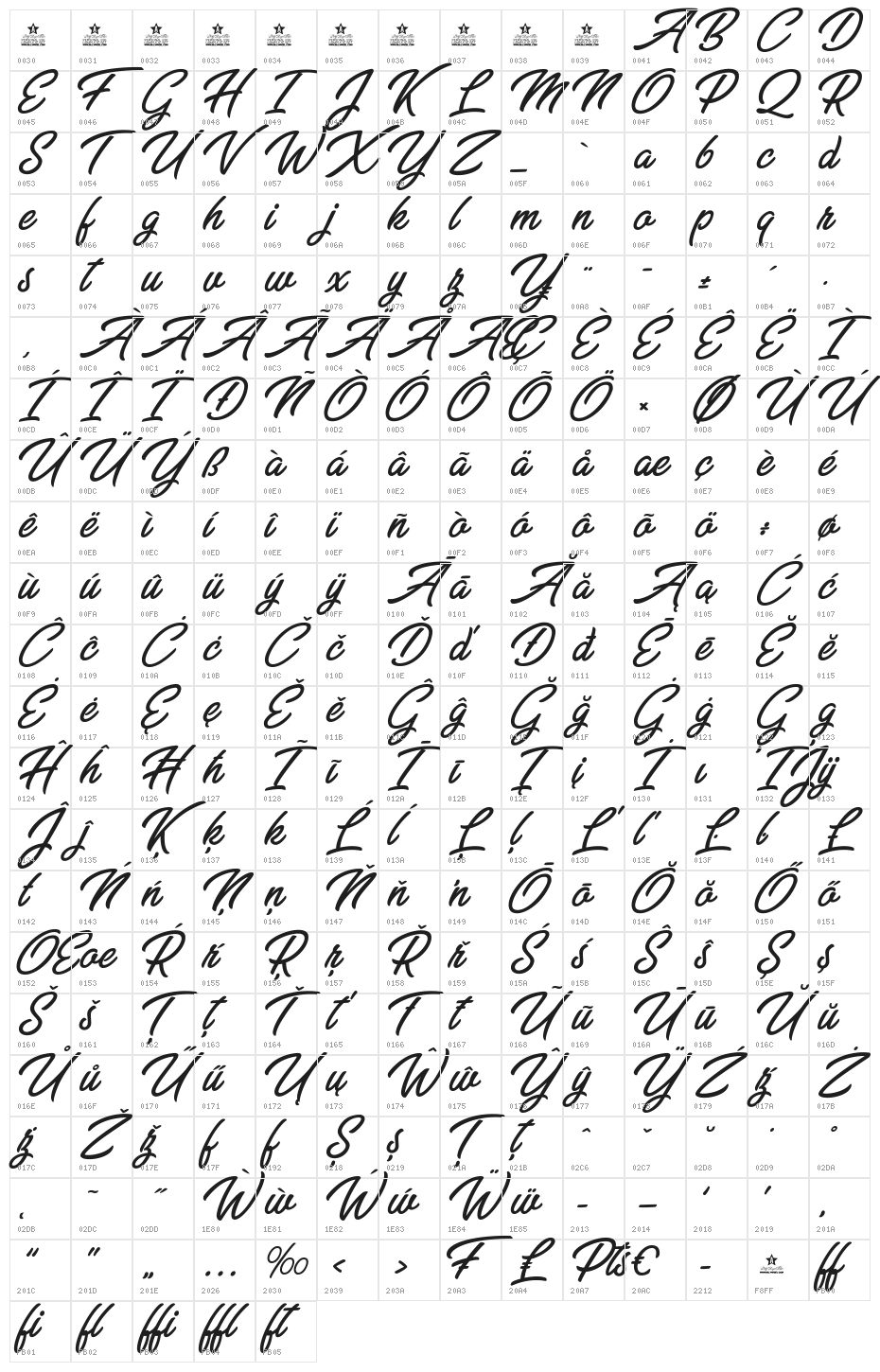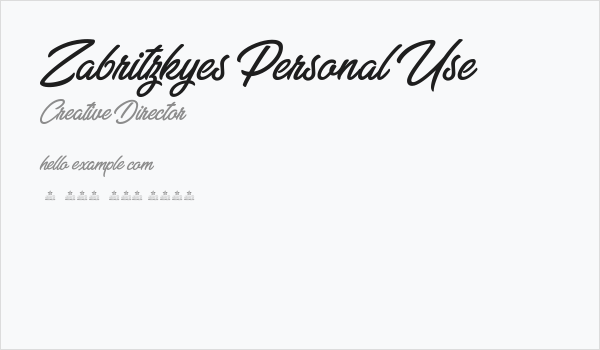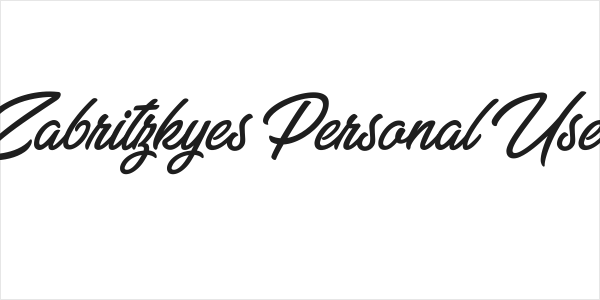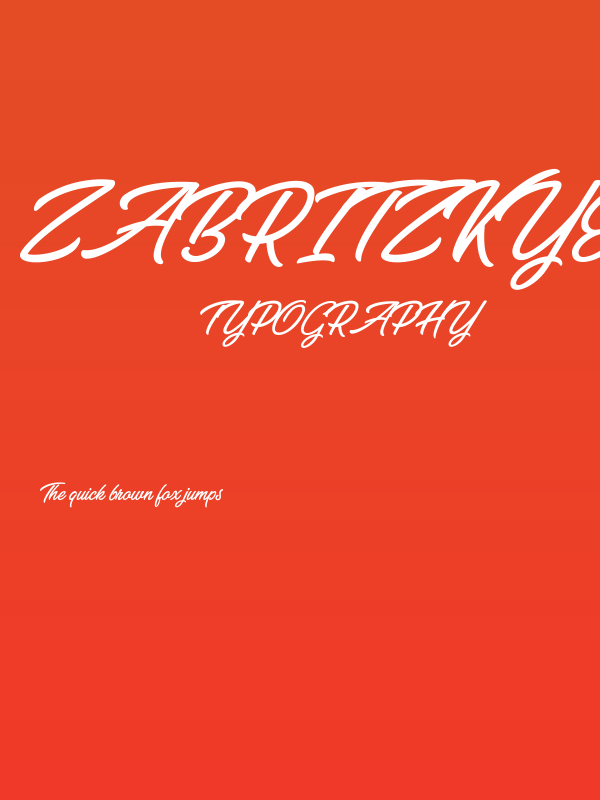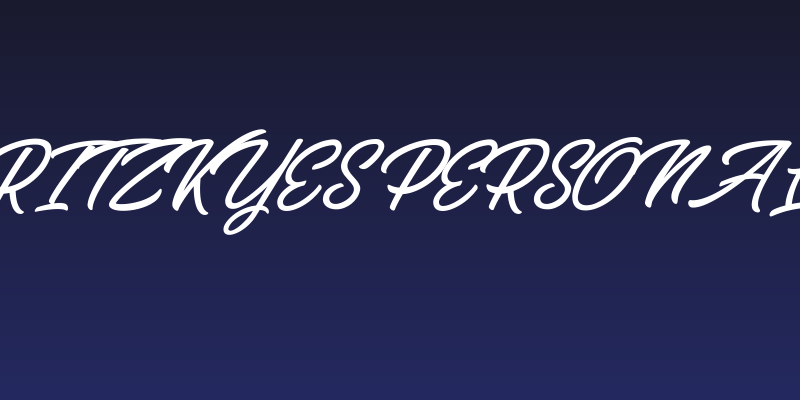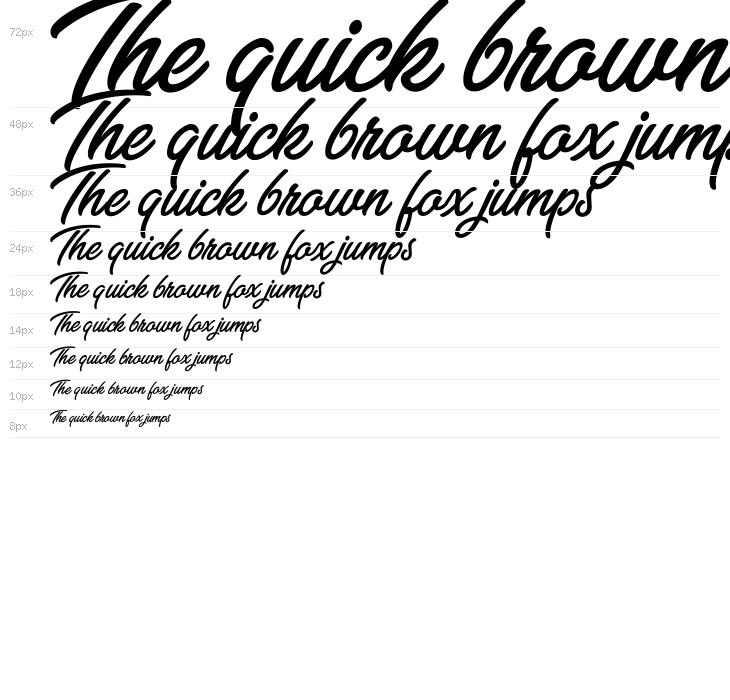
Zabritzkyes Personal Use Font
Zabritzkyes Personal Use Description
This font features a dynamic and flowing script style, characterized by its elegant and cursive letterforms. The uppercase letters exhibit a sophisticated flair with smooth, sweeping curves, while the lowercase letters maintain a consistent, connected flow that enhances readability. The font's overall appearance is bold and expressive, making it suitable for creating impactful designs. The numerals and special characters are crafted with the same attention to detail, ensuring a cohesive look across all text elements. This font's design is ideal for projects that require a touch of elegance and personality.
| Overall Style | Elegant, Decorative |